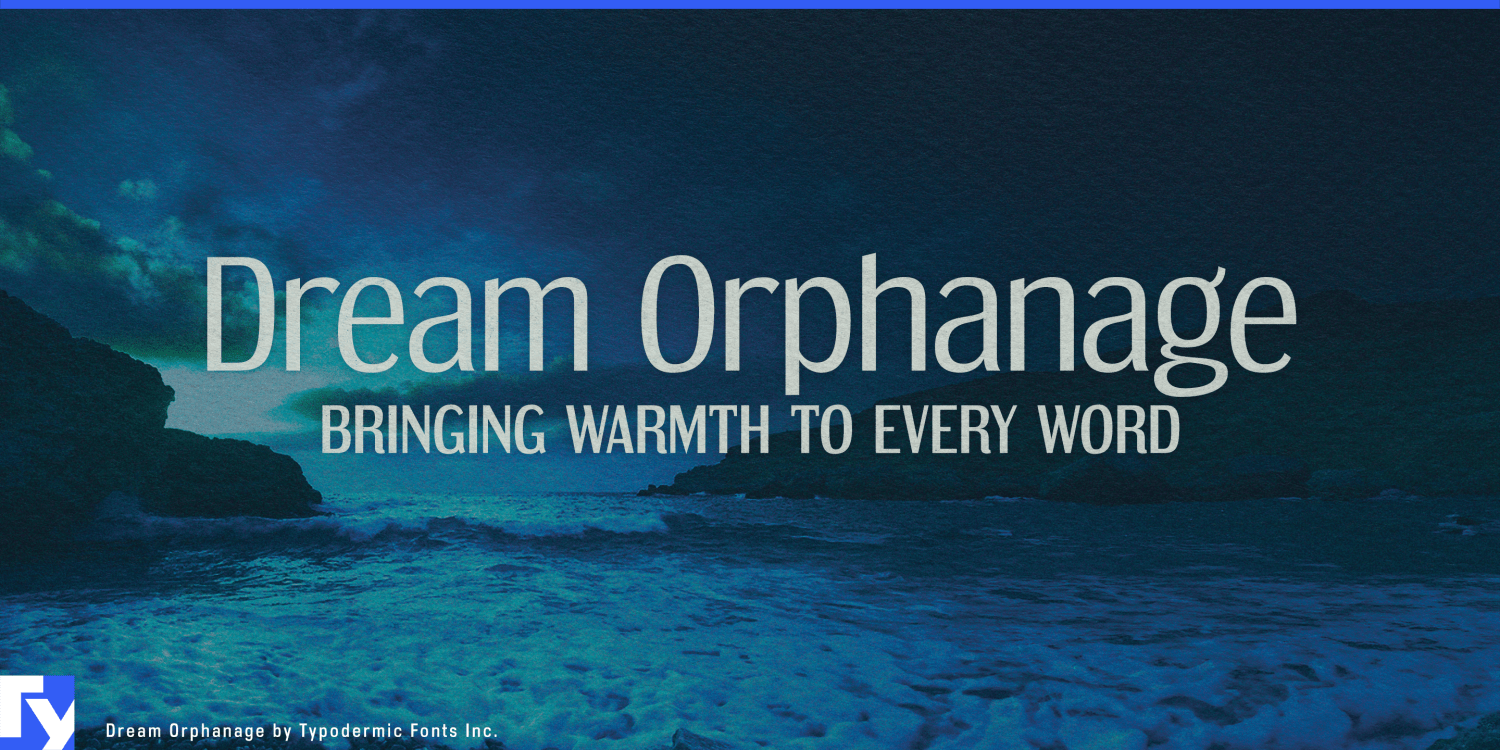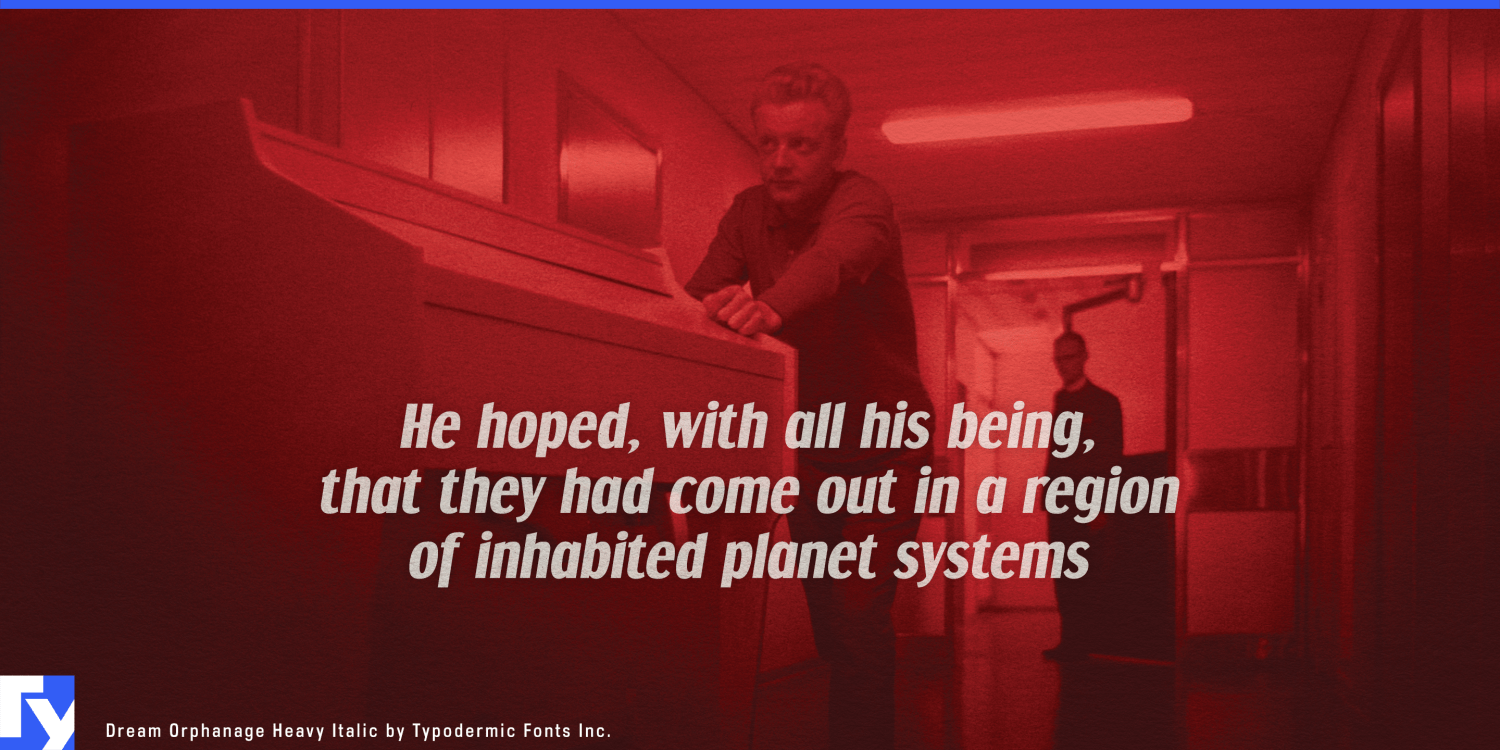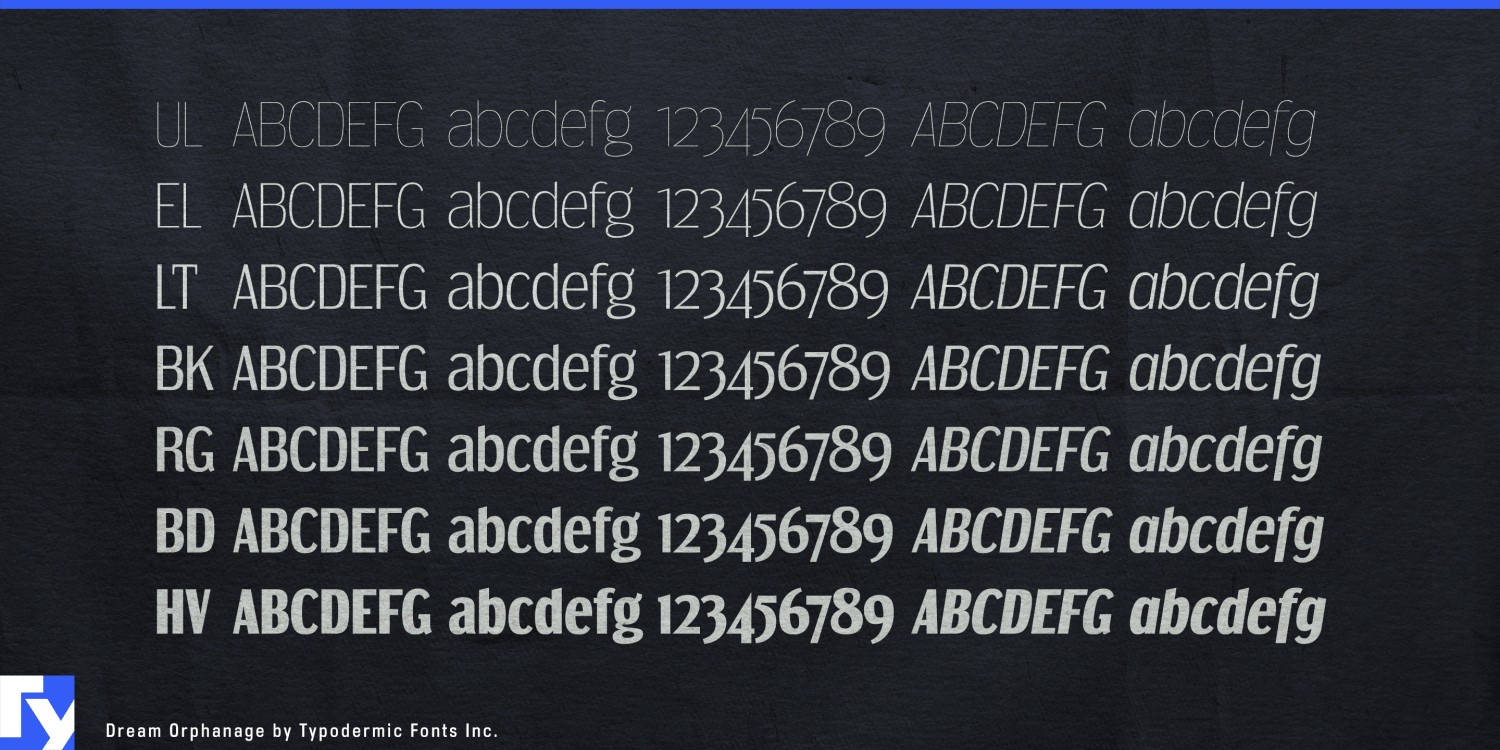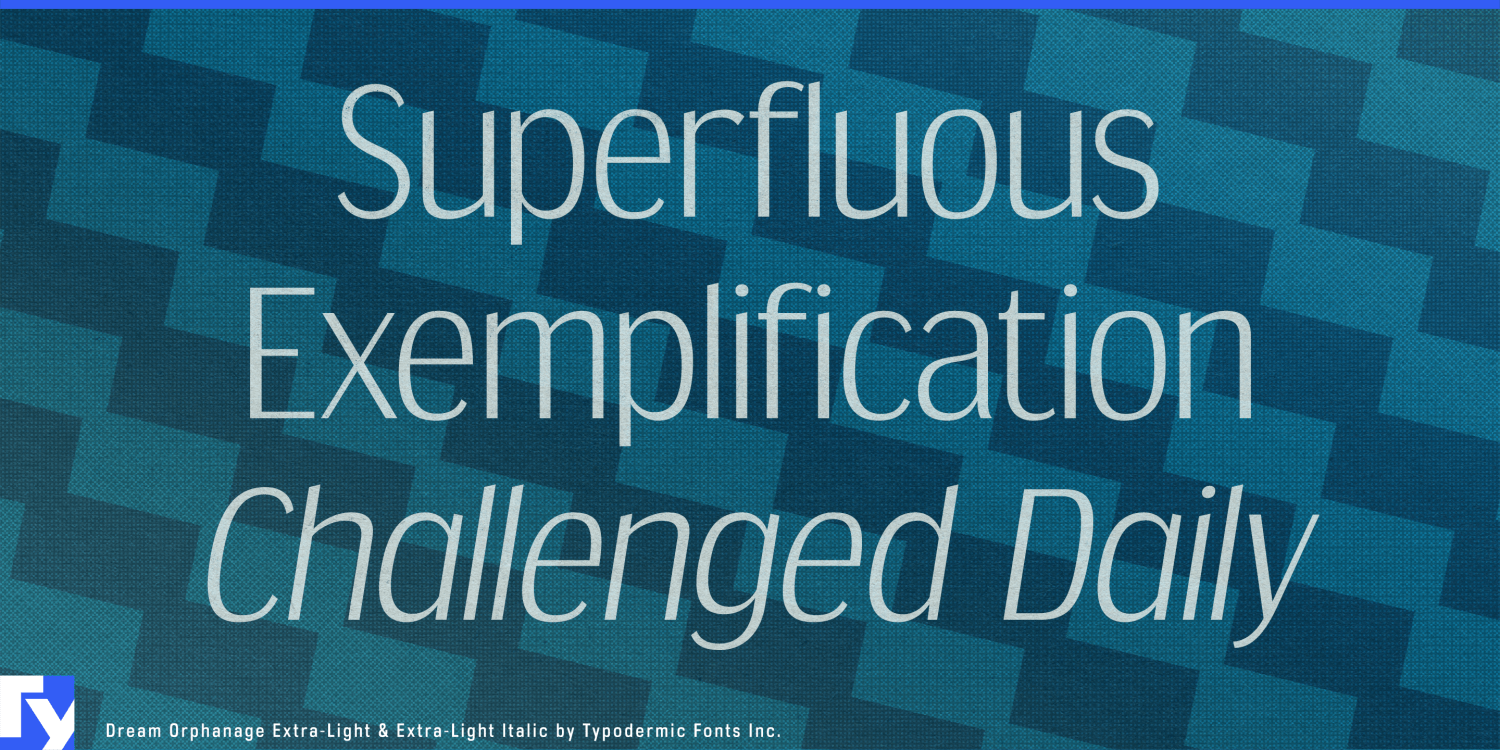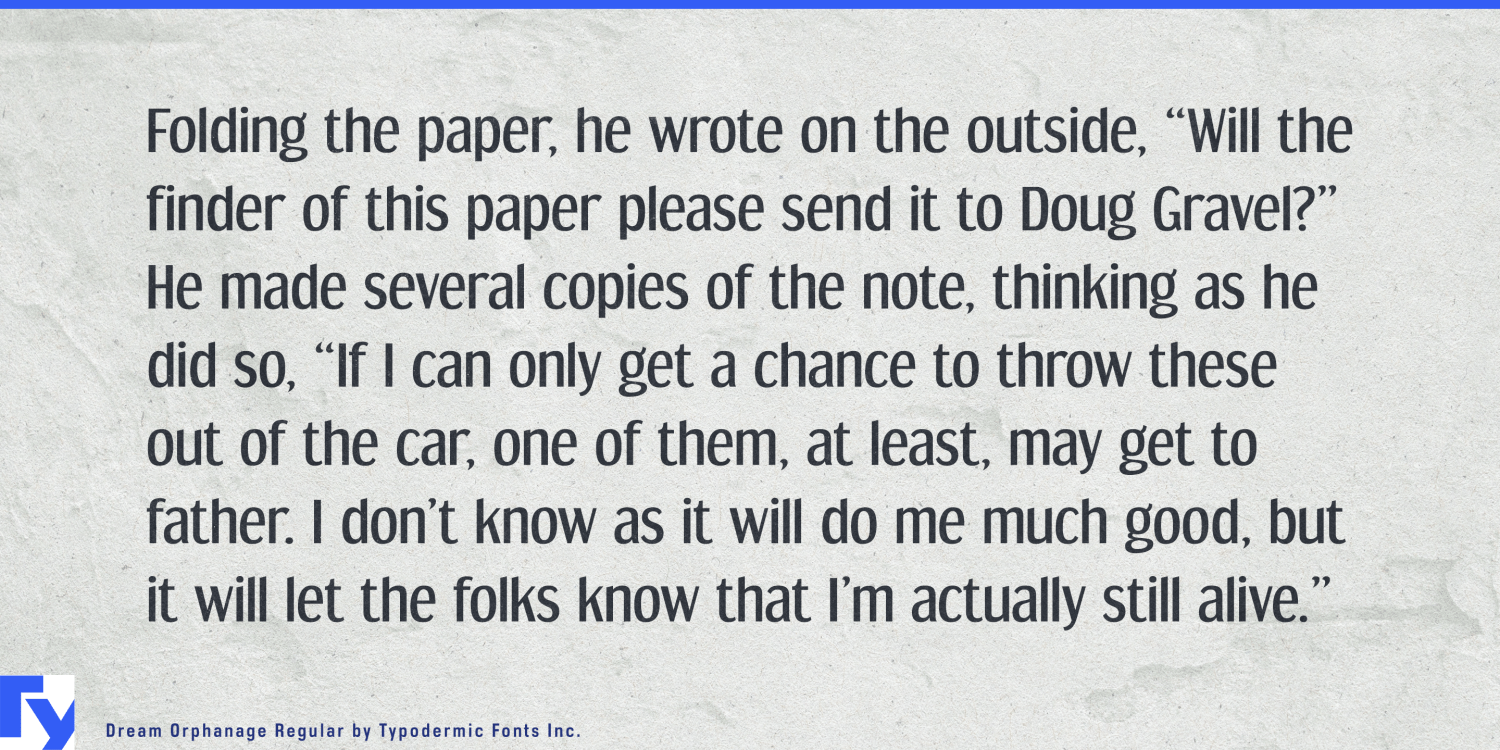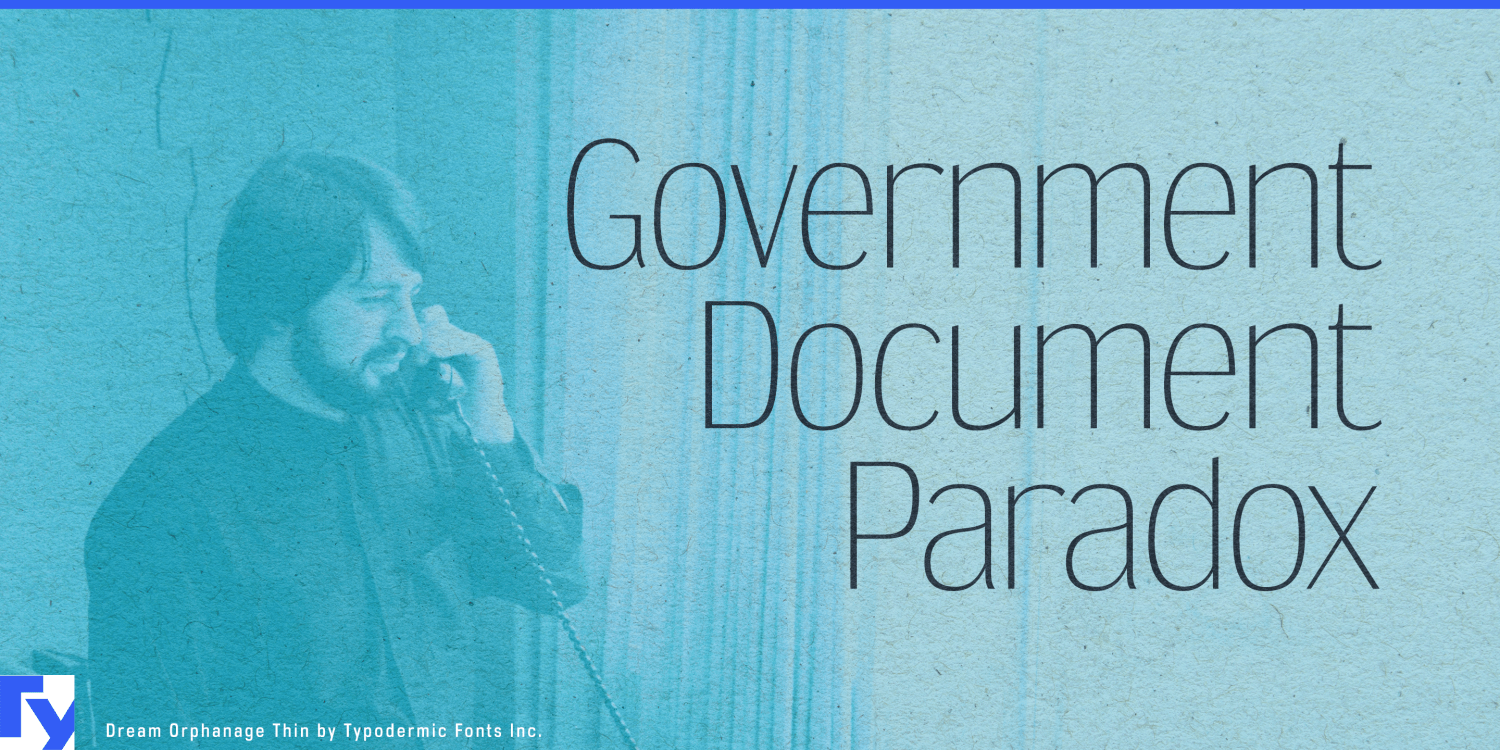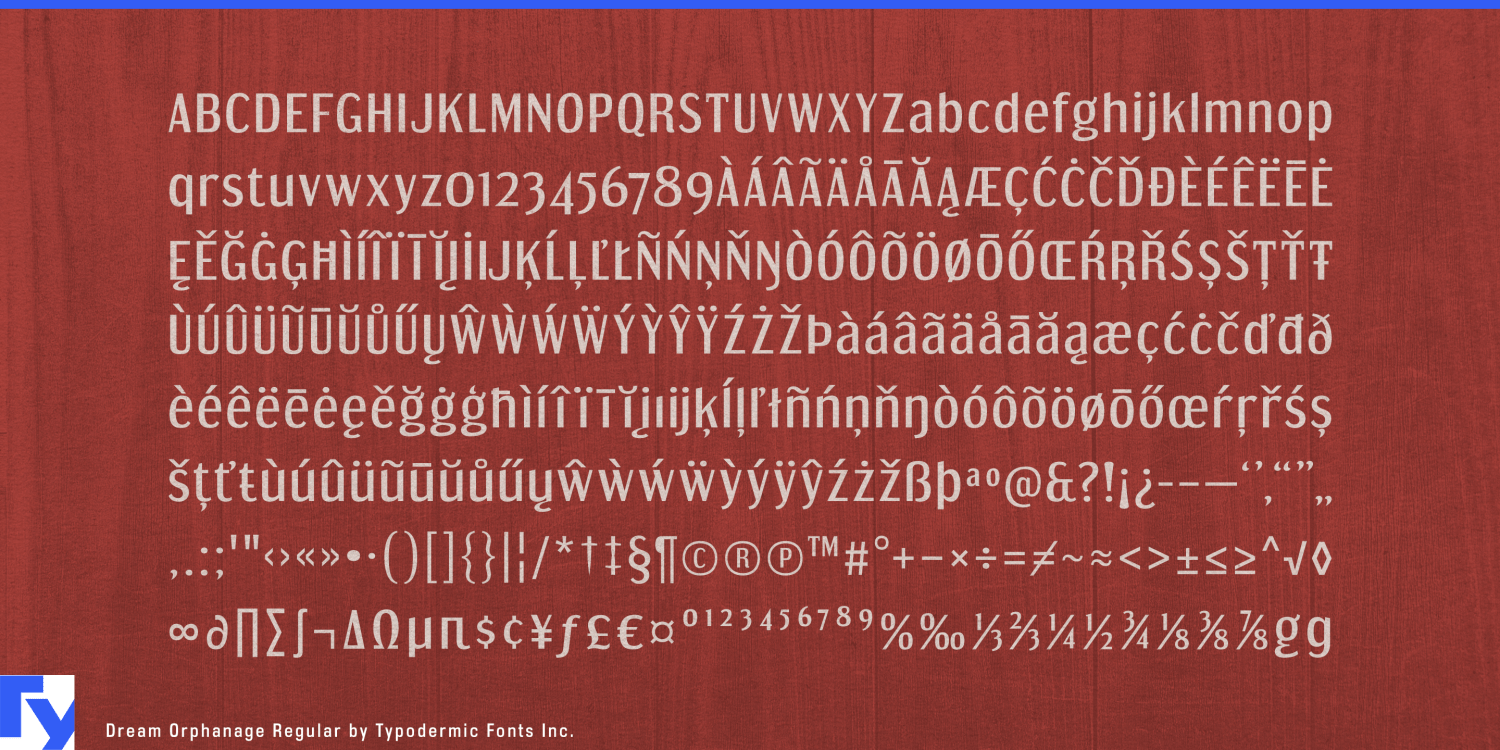
Dream Orphanage
Dream Orphanage is narrow without feeling compressed. Its tall lowercase, open forms, and humanist construction conserve horizontal space while avoiding the mechanical tone that often comes with condensed sans-serifs. That makes it especially useful when people-facing information has to fit compact layouts without looking industrial, bureaucratic, or impersonal.
Healthcare and care services are a natural fit. Clinic networks, telehealth platforms, rehabilitation services, home-care providers, sleep services, patient-education systems, and care-navigation products often need to explain complicated choices in limited screen and page space. Dream Orphanage can handle service names, programme titles, appointment-flow headings, patient guidance, onboarding screens, member communications, and campaign typography while a quieter companion face carries dense interface material.
Employee benefits and insurance create a similar problem. Benefits-enrolment platforms, retirement services, leave-management systems, health-plan communications, family benefits, and employee-assistance programmes have to organize long plan names, categories, comparisons, and explanations without becoming an administrative wall of text. Dream Orphanage’s economical proportions preserve hierarchy while keeping the communication oriented toward the person using the service.
Household electrification offers a particularly strong late-2020s and early-2030s setting. Heat-pump programmes, residential solar services, EV-charging installation, home-energy upgrades, utility rebates, and community energy projects all need to translate technical infrastructure into language households can act on. Dream Orphanage can carry programme names, installation steps, rebate explanations, customer dashboards, comparison graphics, and campaign headings without pushing the system toward hard engineering or generic green-tech branding.
Public-facing digital services extend the same advantage into housing programmes, municipal services, library systems, community transport information, public-benefit portals, and university student services. Long institutional language can retain useful scale across cards, menus, forms, and responsive layouts.
Dream Orphanage gives healthcare, benefits, utilities, and public-service communication the horizontal economy of a condensed sans while retaining the human qualities that make information feel intended for people rather than systems.